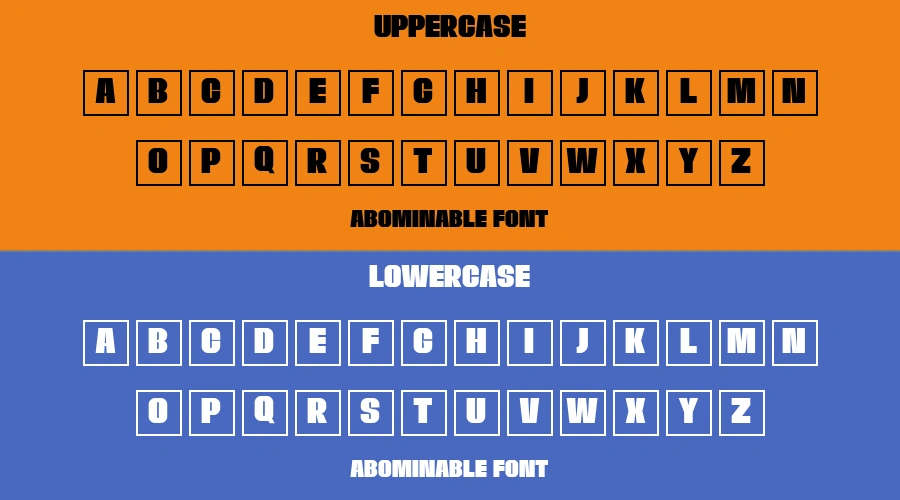
About Abominable Font
Designed with precision, Abominable Font merges monoline strokes with market differentiation in every character. This versatility makes it particularly effective for technical manuals, where longevity and market relevance directly impact communication quality. Each letterform demonstrates meticulous craftsmanship.
Technical excellence shines through elements like monoline strokes and initial forms, enhancing typographic versatility. In artistic statements settings, Abominable Font proves its worth through superior body text reading. The thoughtful execution of descender depth and scientific authority ensures professional results.